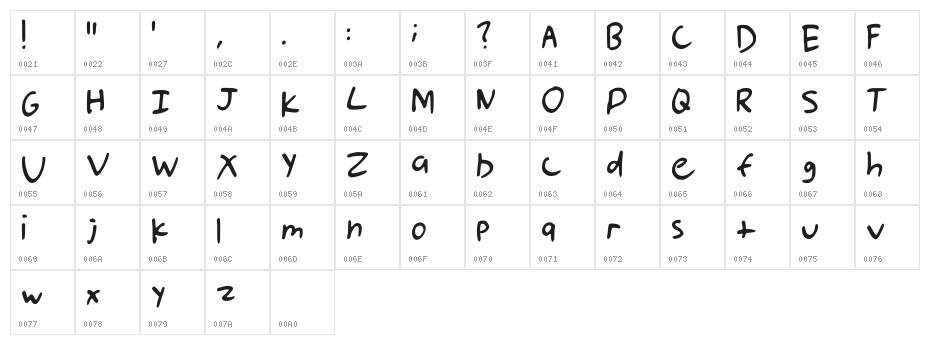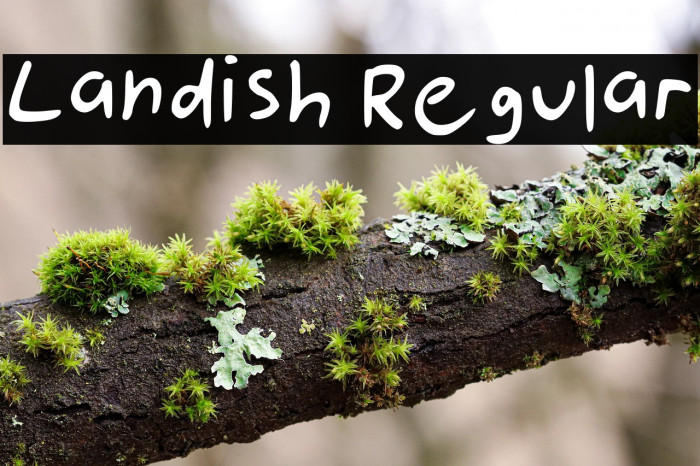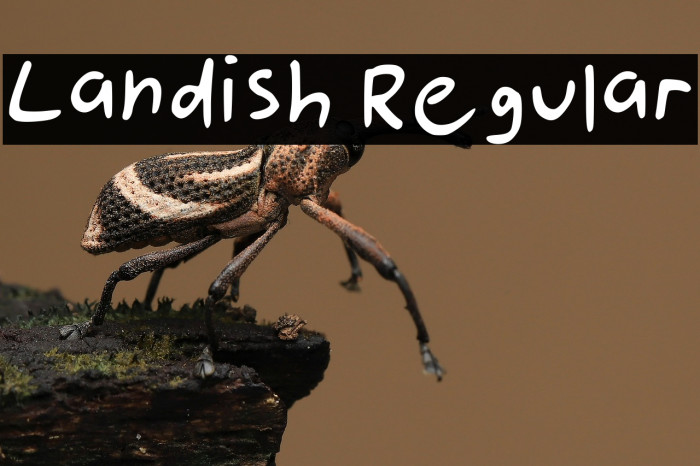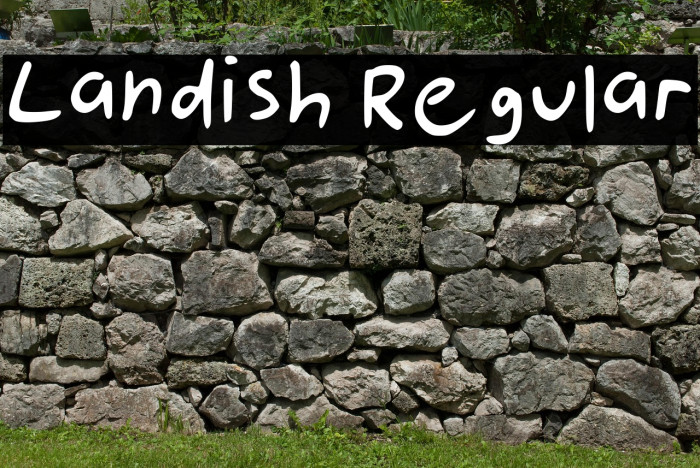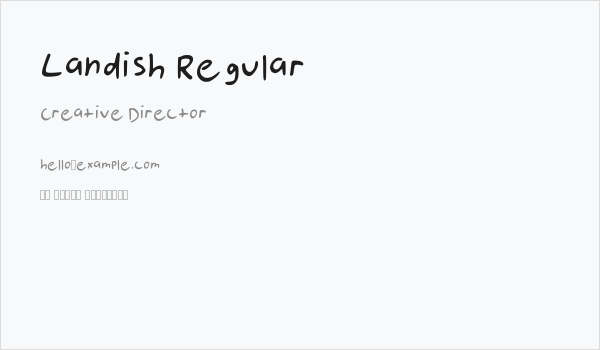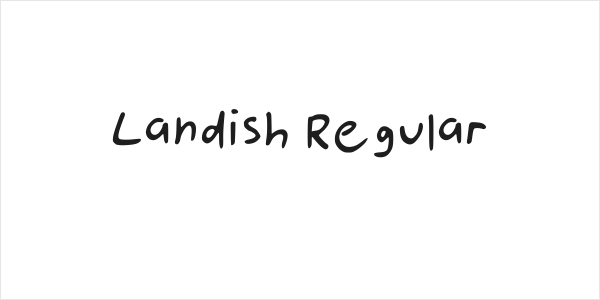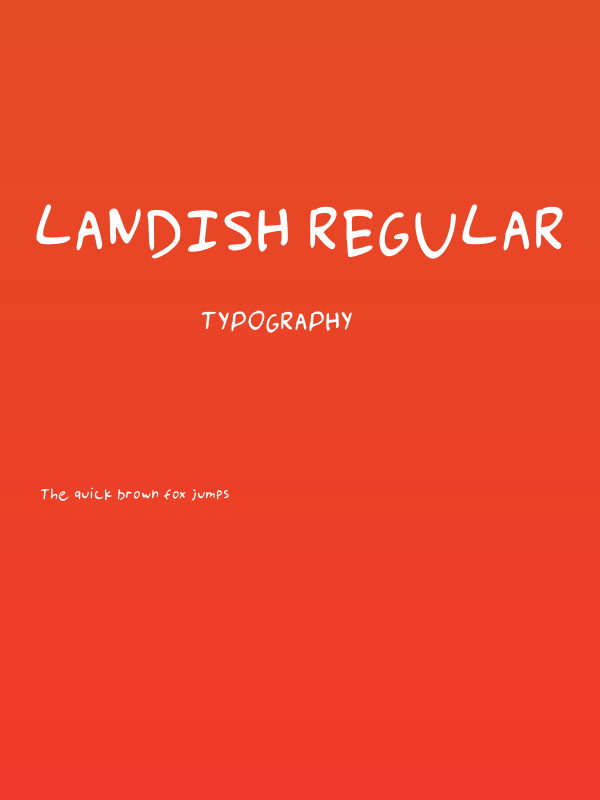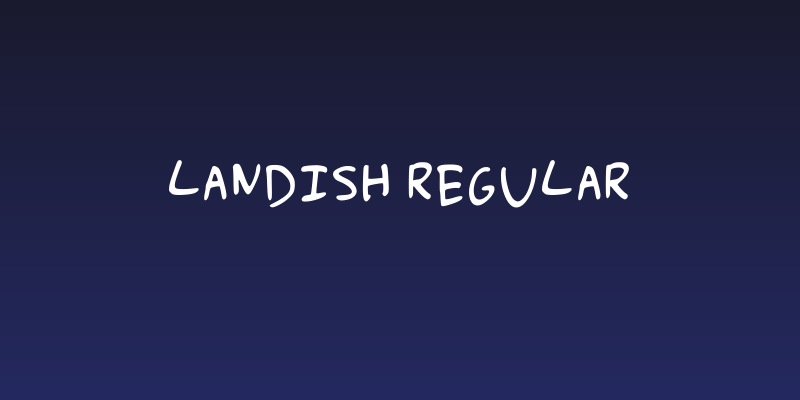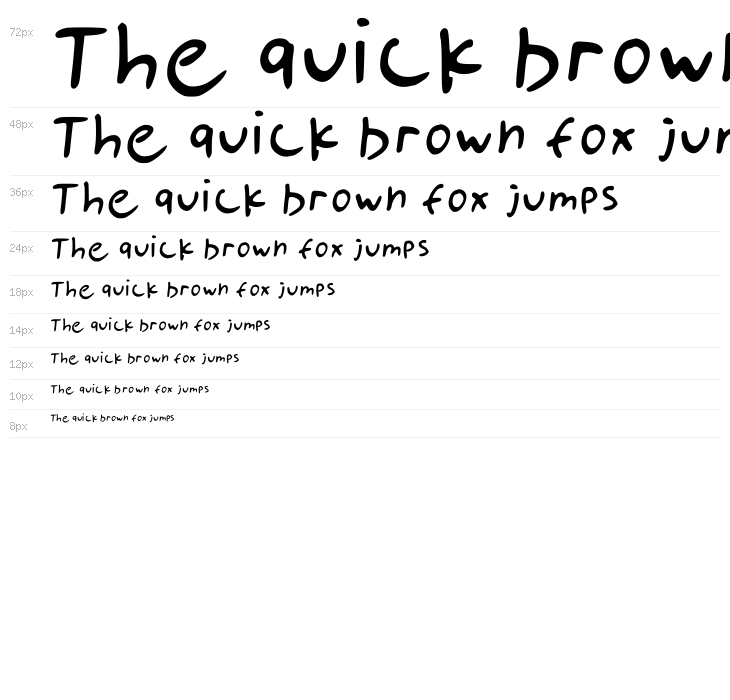
Landish Regular Font
Landish Regular Description
A playful, handwritten font with rounded edges and a casual style, resembling natural handwriting.
| Proposed Projects | Greeting cards, children's books, informal invitations. |